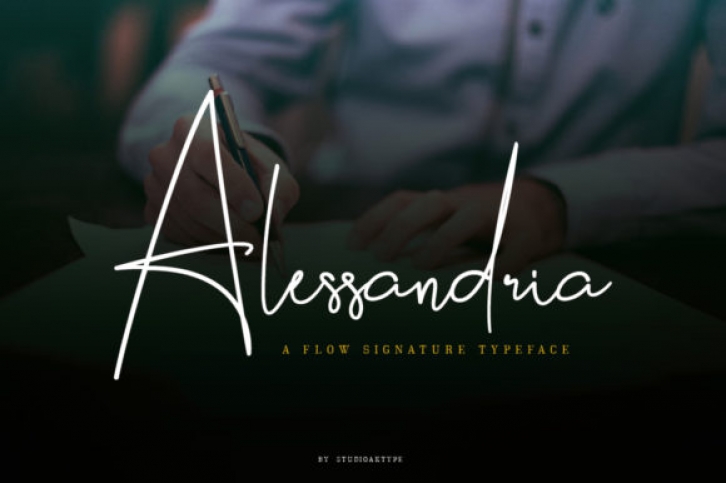
The Alessandria is a script font made for the purposes of branding designs. The scratches give it a natural flow, which makes it perfect for designing your own brand!
The letters look perfect on all printing techniques, foil emboss, embroidery, and more!